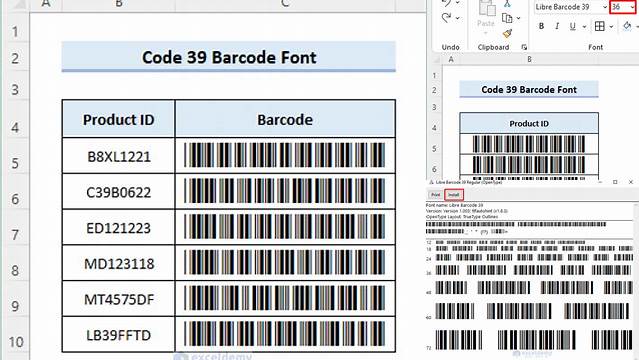
Free Code 39 Barcode Font For Excel: Download & Use!
Hey guys, are you looking for a free and easy way to generate Code 39 barcodes directly within your Excel spreadsheets? Well, you've come to the right place! This article is your ultimate guide to getting a Code 39 barcode font for Excel and using it without any hassle. We'll cover everything from where to download the font for free, how to install it, and most importantly, how to actually use it to create those cool-looking barcodes. Get ready to say goodbye to manual barcode generators and hello to a streamlined, efficient process! Let's dive in and make your Excel life a whole lot easier. No more copying and pasting, just pure barcode bliss! Ready to roll?
H2: Understanding Code 39 Barcodes and Why You Need Them in Excel
So, what exactly is a Code 39 barcode, and why should you care about having it in your Excel spreadsheets? Well, let's break it down. Code 39 is a widely used barcode symbology, that is a system for encoding information into a visual pattern. It's incredibly versatile and used in a ton of industries, from inventory management and tracking products to labeling documents and identifying assets. Think of it like this: it's a visual representation of alphanumeric data (letters and numbers), allowing for quick and easy scanning. Its simplicity and compatibility are what made it so widespread. It's especially useful because it can encode both numbers and capital letters, plus a few special characters. Code 39 doesn't need a checksum digit like some other barcodes, which is a big advantage in certain applications. This is a major convenience. Code 39 can be read with a simple barcode scanner or even a smartphone app. Now, the benefits of having Code 39 barcodes in your Excel spreadsheets are massive. You can track inventory, manage assets, create labels, and streamline data entry. Instead of manually typing in product codes or serial numbers, you can just scan the barcode. If you're dealing with inventory, imagine being able to scan in items as they arrive, move, or are sold, all within your Excel sheet! This reduces errors, saves time, and makes your workflow super efficient. You could also use Code 39 to make labels in a way that is automated, and you don't need specialized software. In short, a Code 39 barcode font for Excel is a productivity powerhouse, making your life easier, saving you time, and reducing the risk of human error. It allows for easy tracking and management of data. Get ready to boost your efficiency. Think of all the time you'll save, which can be spent on things that actually matter. This barcode helps organize things, and reduce errors.